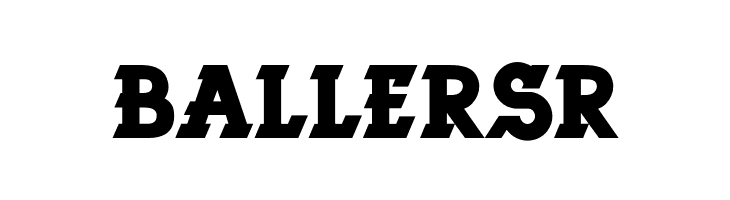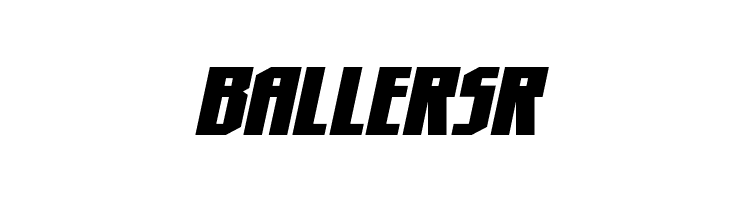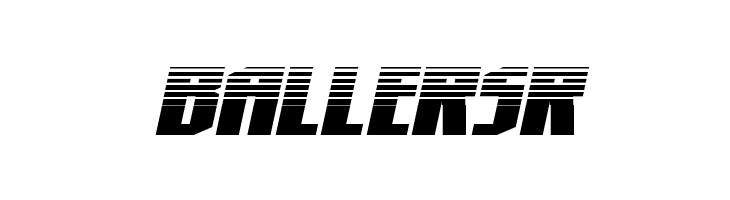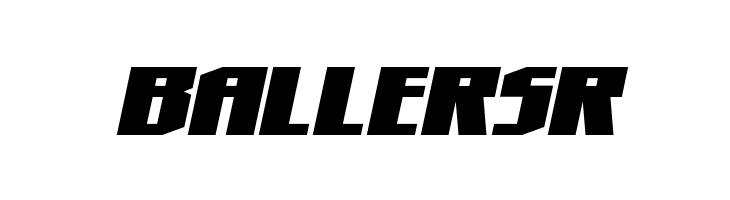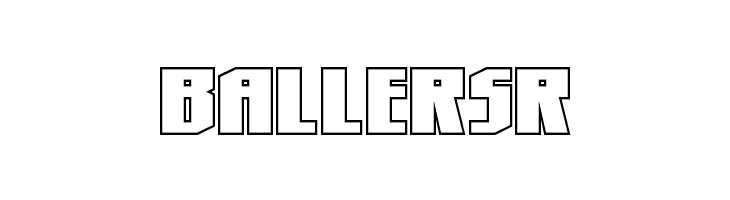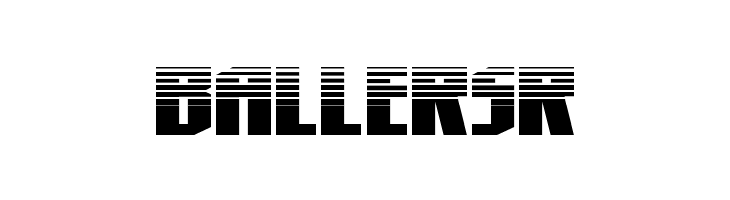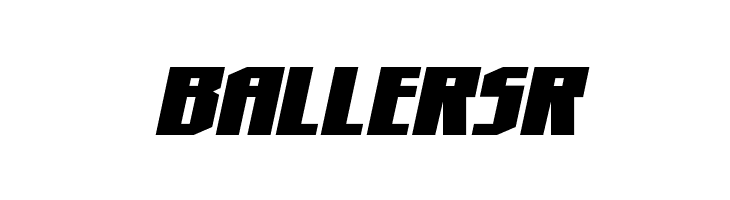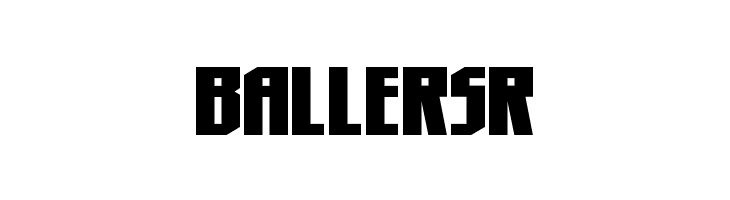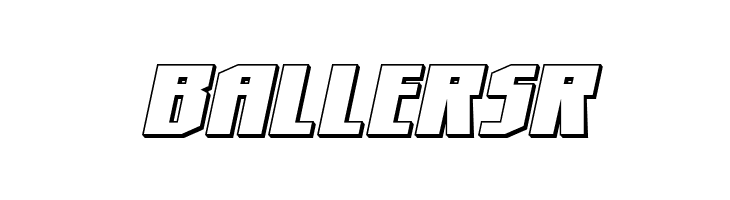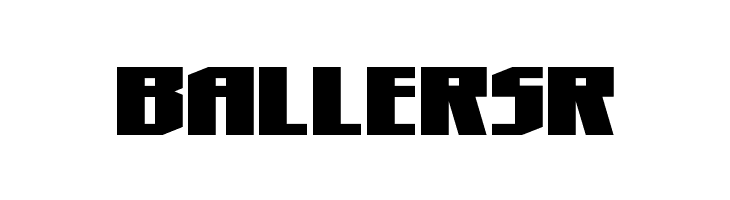
• Hernán Heise
A bold, geometric font with angular shapes and dynamic line weights.
• Herne Bold
A bold, geometric font with strong, angular strokes and high contrast.
• Herne Bold Italic
A bold, italicized font with a strong, dynamic presence.
• Herne Capitals Regular
Bold, uppercase serif letters in decorative square borders.
• Herne Italic
A bold, italic font with a dynamic and modern style.
• Herne Regular
A bold, serif font with strong, angular serifs and a modern yet classic style.
• Hernitta - Personal Use
A graceful script font with flowing curves and high contrast, perfect for elegant designs.
• Hero
A bold, geometric font with strong, angular shapes ideal for impactful headlines.
• Hero
A modern, rounded sans-serif font with uniform strokes and balanced spacing.
• HERO BEAM Regular
A bold, decorative font with intricate details and elegant flourishes.
• Hero Fest
A playful, bold font with rounded, bubbly characters perfect for fun and creative projects.
• Hero Italic
Bold, italic, and geometric font with a dynamic and energetic style.
• Hero Italic
• Hero Of Fools
A playful, hand-drawn font with a whimsical and cartoonish style.
• Hero Outline
A bold, outlined serif font with a modern twist and classic elements.
• Hero Panda
A bold, playful font with thick, rounded strokes and a hand-drawn feel.
• Hero Regular
• HERO Regular
A geometric, futuristic font with angular lines and a modern aesthetic.
• Hero Toddler Demo
A playful, hand-drawn font with a crayon-like, sketchy texture.
• Hero Toddler Demo Display
A playful, handwritten font with bold, slightly slanted strokes.
• Hero Worship
A bold, geometric font with strong, angular shapes.
• Hero Worship 3D